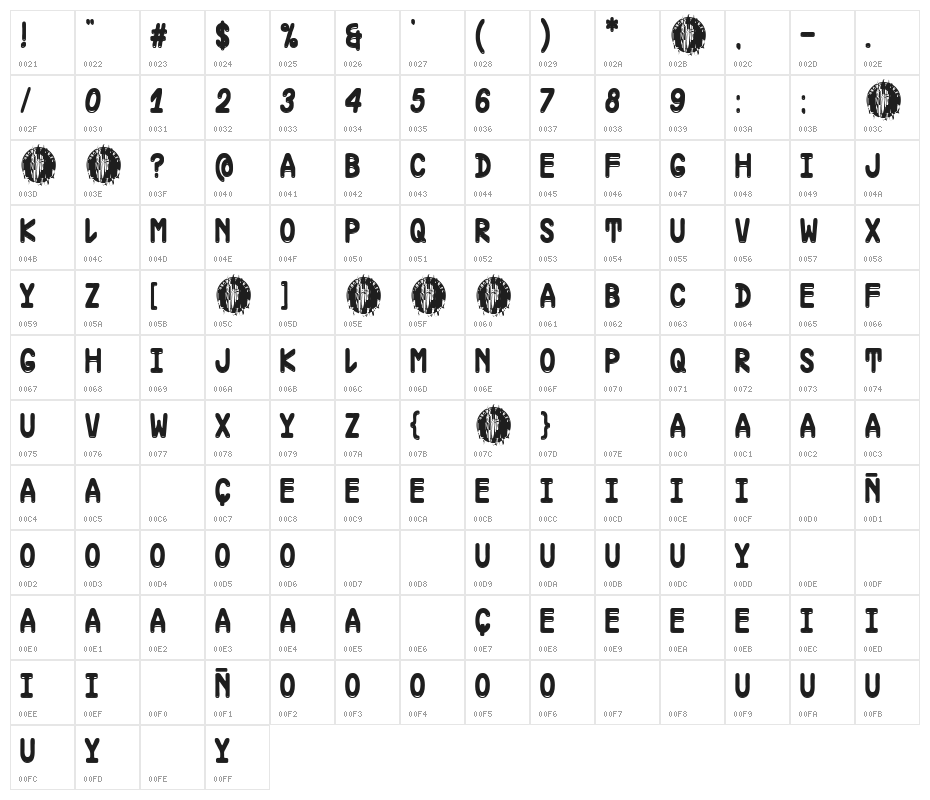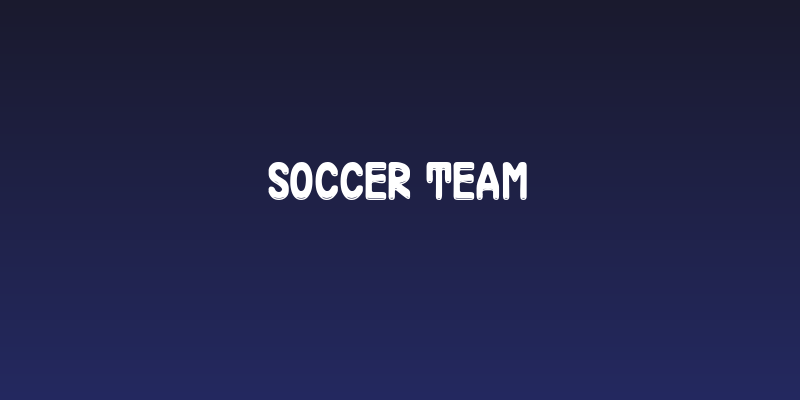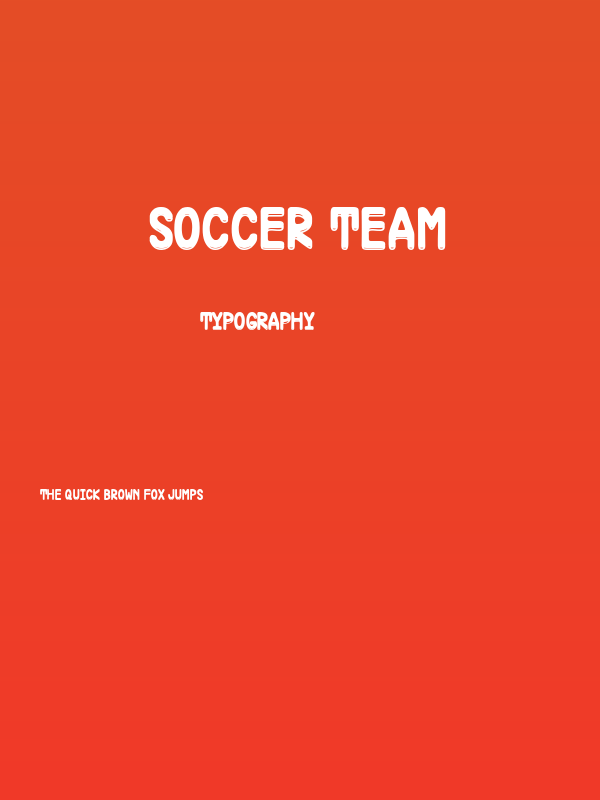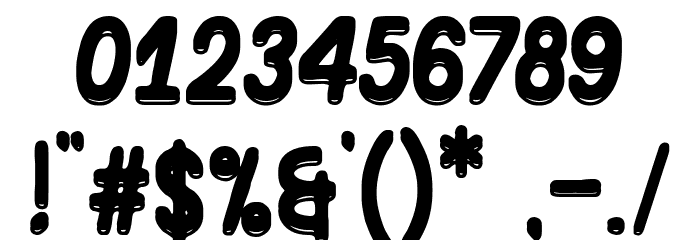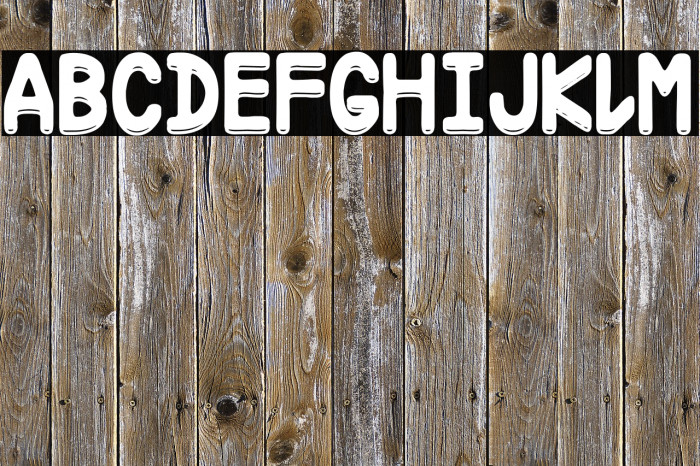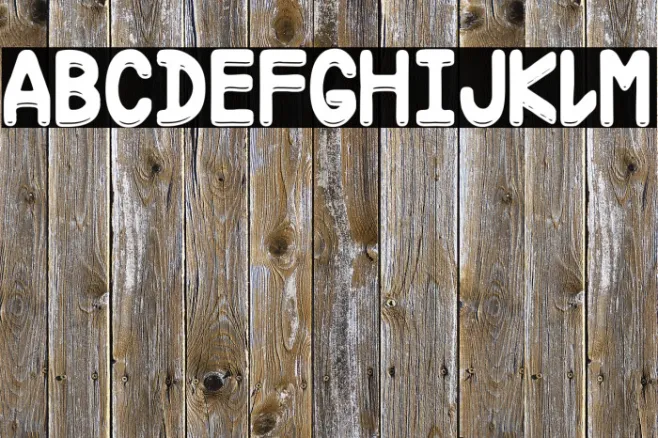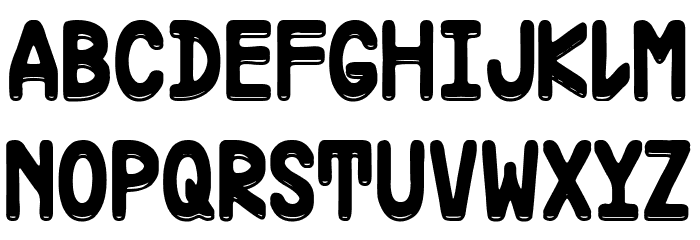
Soccer Team Font
Soccer Team Description
This font features bold, rounded characters with a playful and energetic style. The letters are thick and have a slightly inflated appearance, giving them a three-dimensional look. The uppercase and lowercase letters maintain a consistent style, with smooth curves and a uniform stroke width. The numbers and special characters are designed to match the overall aesthetic, making them ideal for creating a cohesive design. The font's boldness and unique style make it stand out, perfect for projects that require a fun and dynamic visual impact.
| Overall Style | Playful, Energetic |
| Proposed Projects | Ideal for sports team branding, children's book covers, playful posters, and event flyers. |